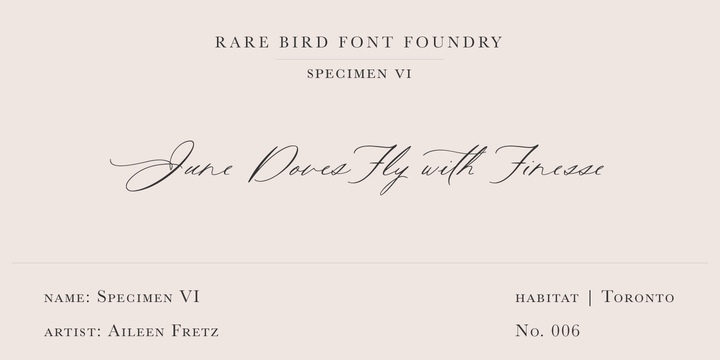
Rare Bird Specimen VI Font
Rare Bird Specimen VI Font is perfect for natural history museums, ornithology publications, vintage scientific journals, nature conservation campaigns, botanical garden signage, wildlife photography branding, eco-tourism marketing, field guide designs, and educational nature documentaries.
What makes Rare Bird Specimen VI Font exciting is its meticulously crafted specimen-inspired character design combined with scientific precision that evokes the golden age of natural discovery. The font's carefully detailed letterforms and authentic field notes aesthetic deliver exceptional scholarly appeal while maintaining superior legibility, making it the ideal choice for organizations seeking to communicate scientific authority, environmental stewardship, and educational excellence.
Rare Bird Specimen VI Font family includes regular and italic weights with decorative naturalist elements, vintage scientific ornaments, and contextual alternates featuring specimen-style details, providing comprehensive design solutions for creating authentic scientific branding and educational nature communications.
This remarkable typeface embodies the spirit of Victorian-era natural history exploration and contemporary conservation science in every precisely crafted character. Rare Bird Specimen VI Font Free Download offers museums, educators, and nature organizations an exceptional opportunity to develop brand identities that resonate with audiences passionate about wildlife preservation and scientific discovery. Whether you're creating museum exhibition materials, designing field research publications, or developing environmental education campaigns, this font family delivers the scholarly credibility needed to engage serious nature enthusiasts.
The authentic specimen-style details and scientific annotation aesthetics create instant recognition among naturalist communities while communicating expertise, conservation values, and educational mission. Extensive decorative elements support storytelling about biodiversity and scientific research.
Rare Bird Specimen VI Font distinguishes itself through its unique ability to bridge historical scientific tradition with modern conservation messaging. This extraordinary typeface doesn't just present information—it creates immersive educational experiences that inspire environmental awareness and scientific curiosity, making it invaluable for organizations dedicated to wildlife preservation and nature education.